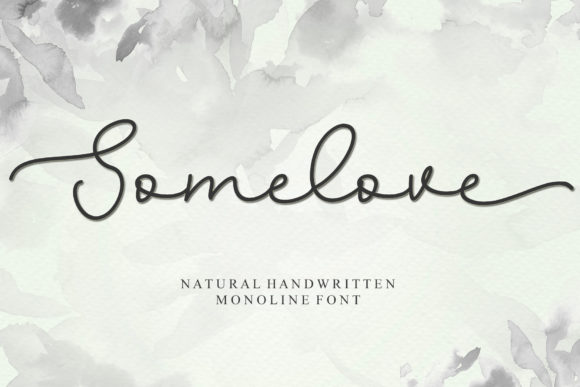
Welcome to the world of Somelove Font, a free-flowing handwritten font that will transform your design journey. With its elegant curves and graceful strokes, Somelove is the perfect font for wedding invitations, adding a touch of sophistication and charm to your special day. Each letter dances across the page, creating a whimsical, enchanting atmosphere that will leave your guests mesmerized.
Somelove's beauty extends beyond wedding invitations. Its versatility makes it an ideal font for branding, logos, social media graphics, and even handwritten notes. Its adaptability allows it to shine in various design concepts, bringing a personal touch to any project.
But what truly sets Somelove apart is its ease of use. As a PUA-encoded font, all glyphs and swashes are effortlessly accessible, making it a breeze to add intricate details and flourishes to your designs. This user-friendly feature empowers you to create stunning designs without the hassle of complicated software or technical expertise.
Somelove Font is more than just a font; it's an invitation to unleash your creativity. Dive into a world of elegance, charm, and simplicity, where your designs take center stage. Let Somelove be your guide in crafting visual masterpieces that captivate and inspire.